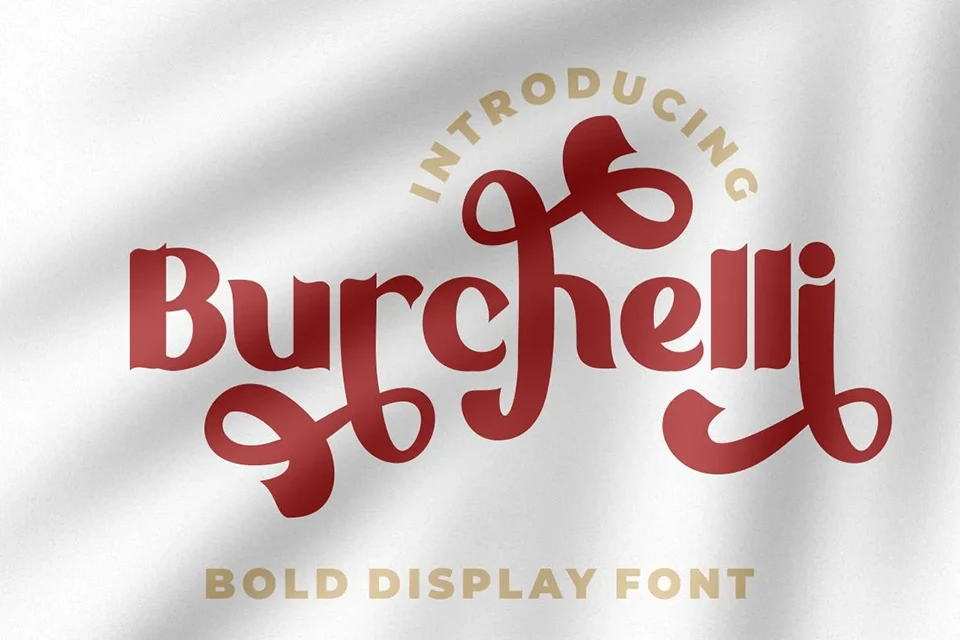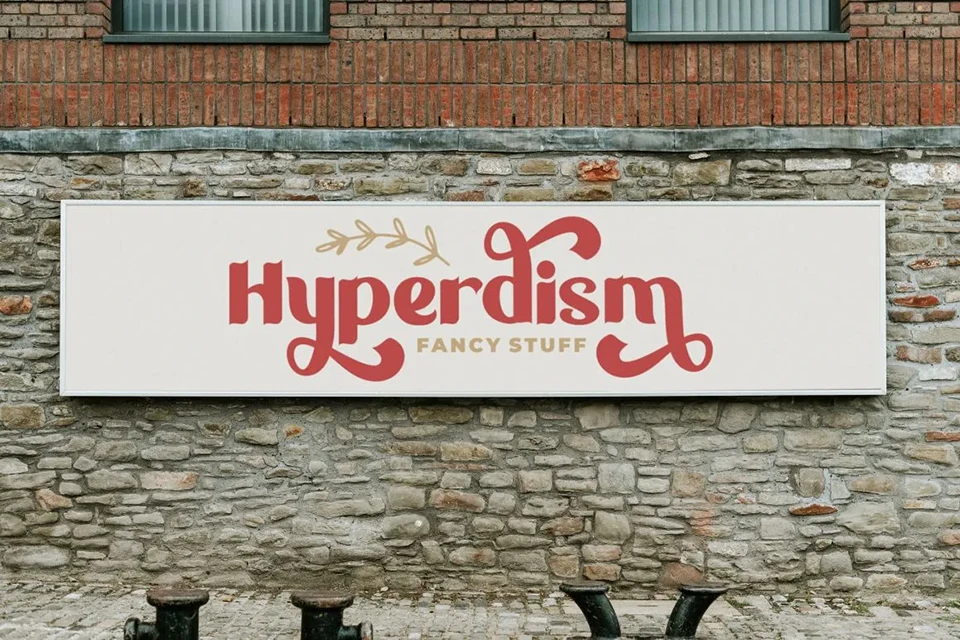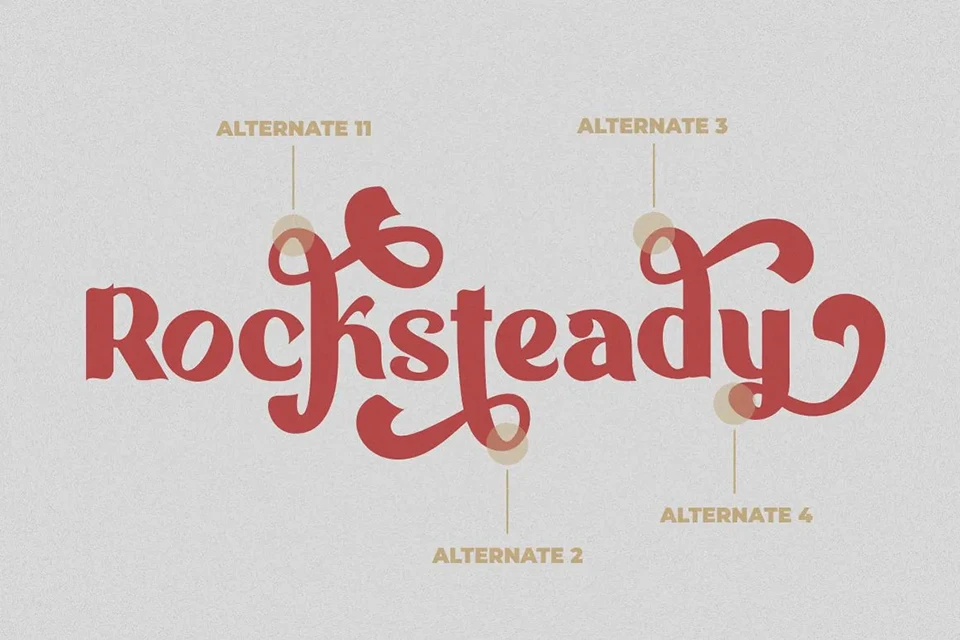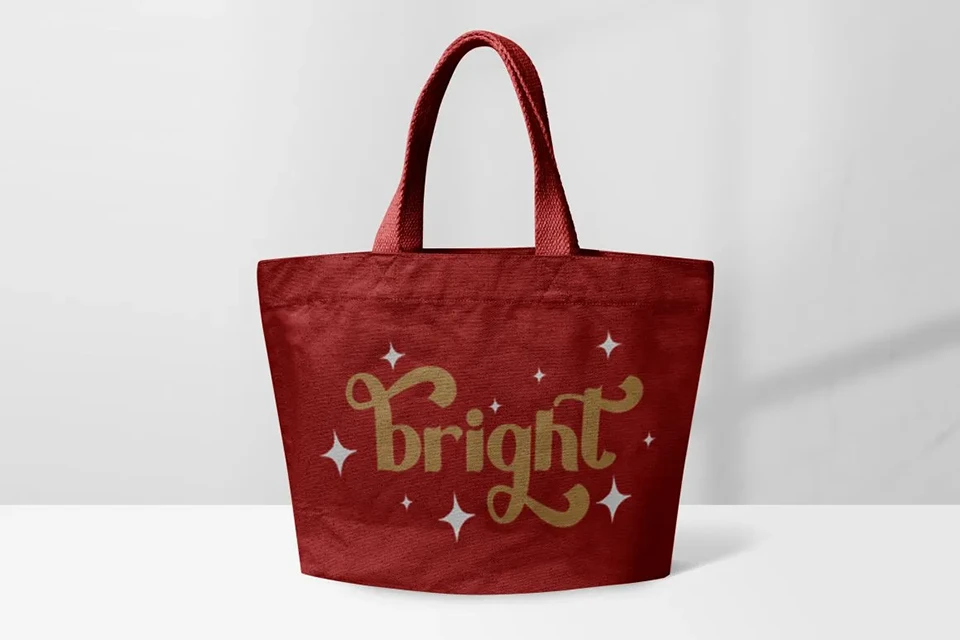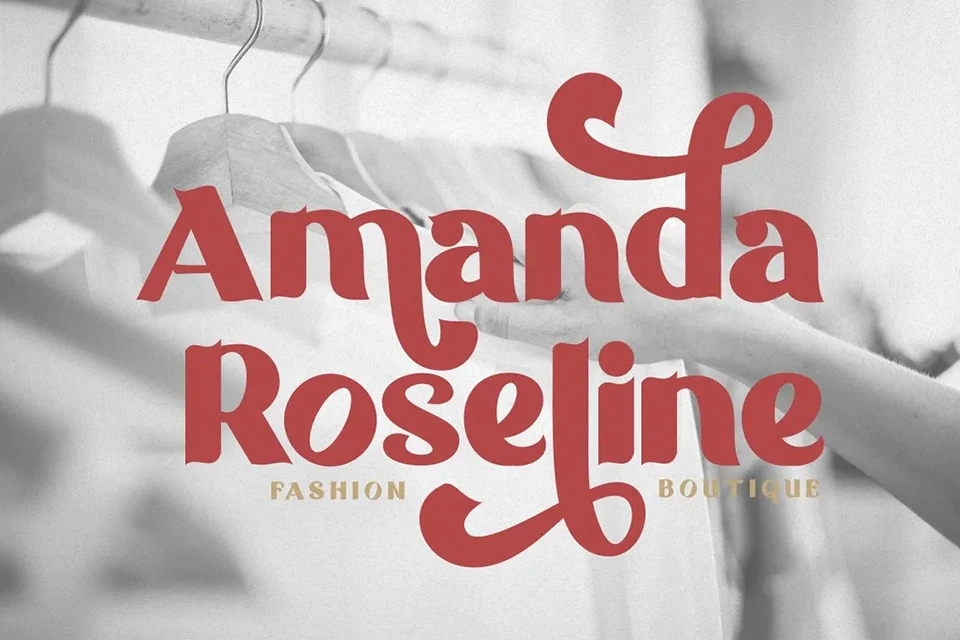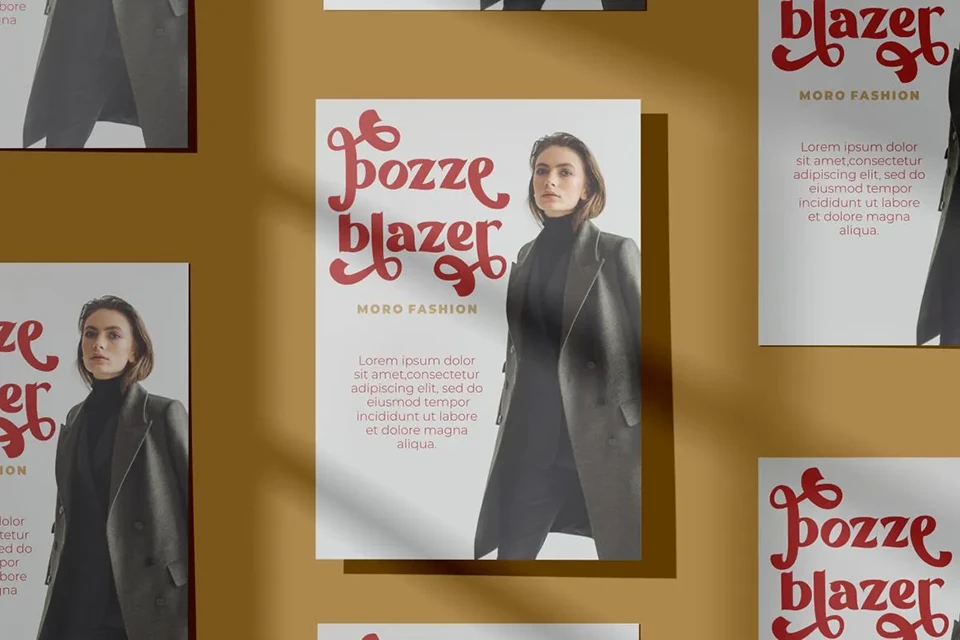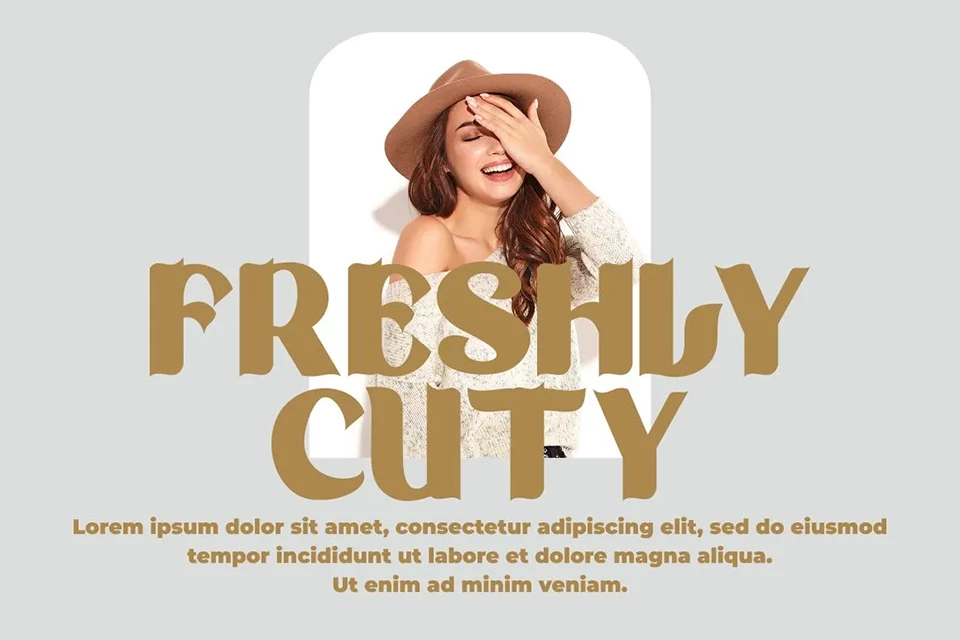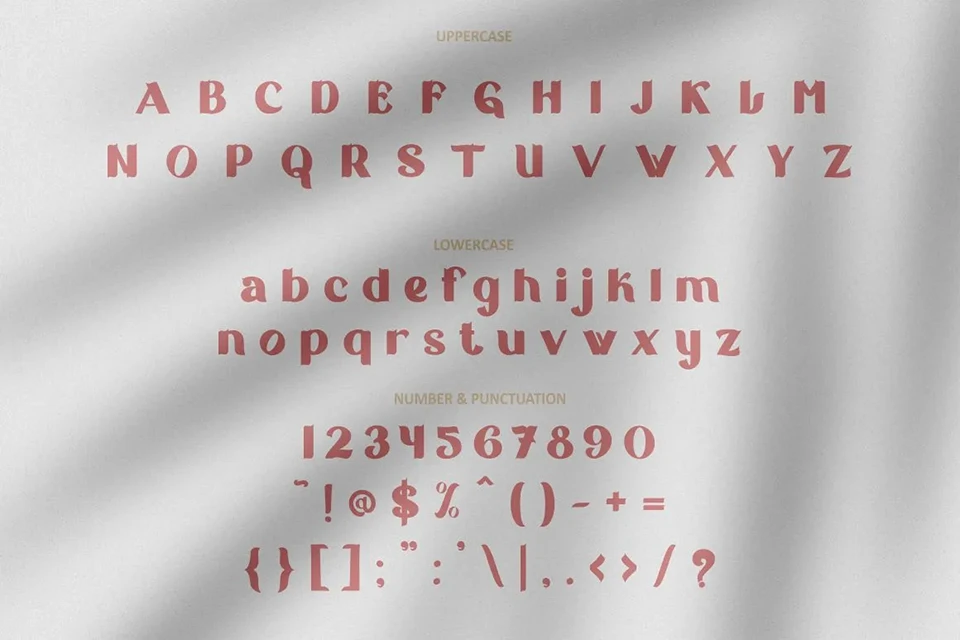
Burchelli Font
Burchelli – A Bold Display Sans Font. Infused with fun, trendy, and lively vibes, Burchelli is inspired by the extra-bold font style and display sans. It offers a surprising alternative to traditional sans-serif fonts, enhancing the beauty of your work.
Perfect for adding a professional touch, Burchelli is ideal for unique displays and classic themes. It’s also well-suited for logos, branding, greeting cards, invitations, advertisements, titles, headlines, book titles, stickers, packaging, quotes, posters, t-shirts/apparel, billboards, and more.